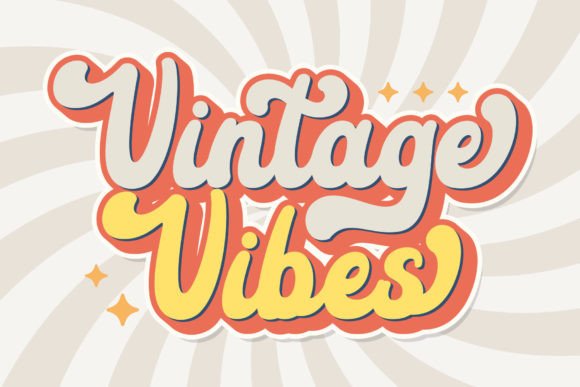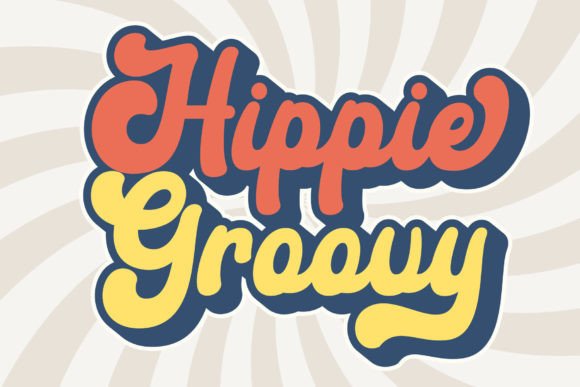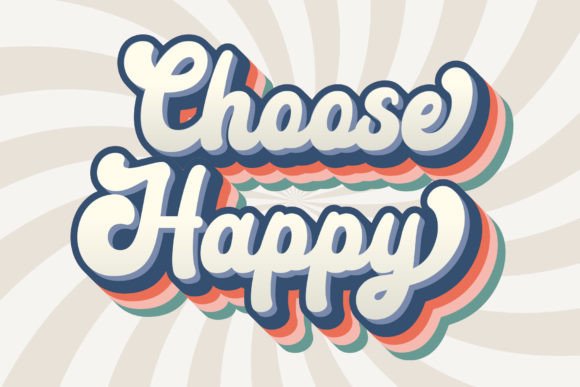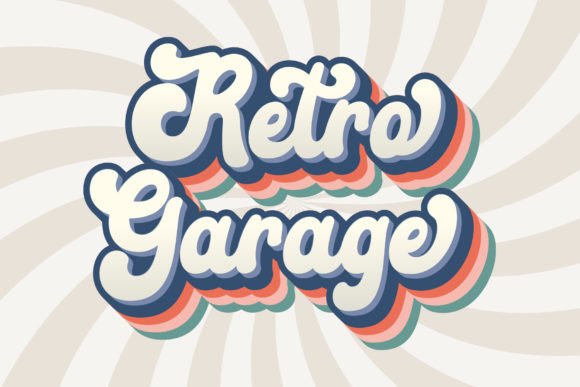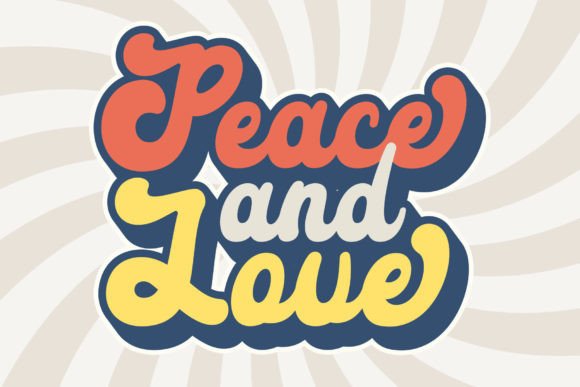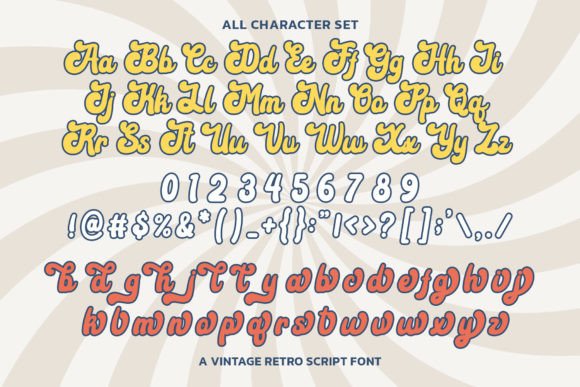
Introduction to Felling Vintage Font Font
Fonts play a crucial role in design, and the Felling Vintage Font font is a typeface that brings both character and versatility to any project. Whether you’re working on a branding project, a website, or a print design, the Felling Vintage Font font offers a unique style that can elevate your work.
Felling Vintage is a cool, vintage-style handwritten font.
Use it to add that special retro touch and boldness to any design idea It can be used for logos, branding, invitations, stationery, wedding designs, social media posts, and much more.
Key Features of Felling Vintage Font Font
Why Choose Felling Vintage Font Font?
The Felling Vintage Font font is more than just a typeface – it’s a design tool that helps you communicate your message with style and clarity. Its unique character set and versatile design make it suitable for a wide range of applications, from elegant invitations to bold headlines.
With its carefully crafted letterforms and balanced proportions, the Felling Vintage Font font ensures readability and visual appeal across all mediums.
What makes Felling Vintage Font font special?
The Felling Vintage Font font stands out with its unique design, exceptional readability, and versatility across various design applications.